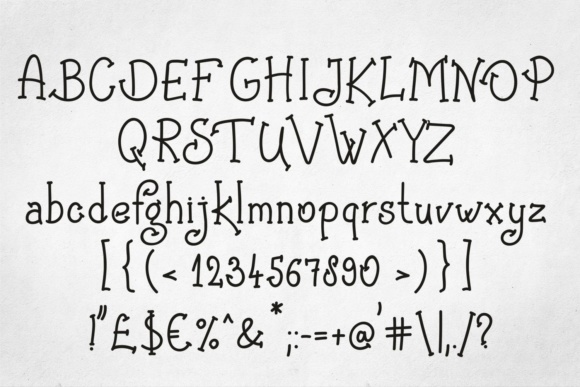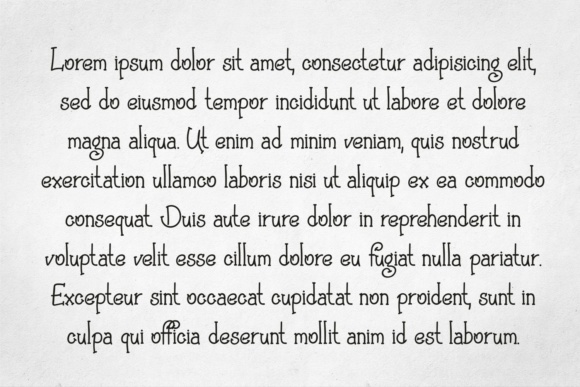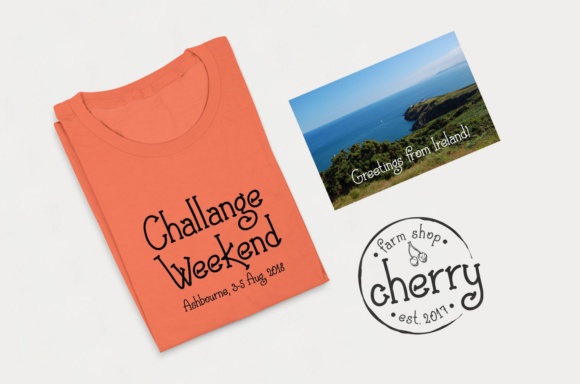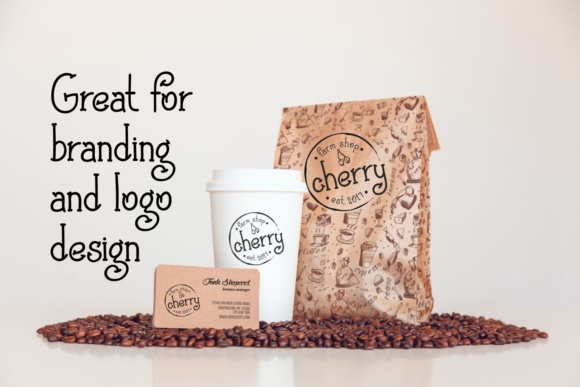
A Warm Touch of Personality with Agrifan Font
Have you ever been working on a project, and the right font just evades you? You scroll through your favorite font libraries, and nothing seems to capture the essence of what you’re trying to convey. That’s exactly what happened to us when we stumbled upon the Agrifan Font.
Agrifan Font is a beautifully crafted serif typeface, carefully hand-designed to add a touch of warmth and personality to your designs. Whether you’re working on a logo, branding project, or a crafty endeavor, Agrifan Font is the perfect companion to bring your ideas to life.
As a valuable addition to any designer’s toolkit, Agrifan Font offers a level of sophistication and charm that’s hard to find in more generic font options. Its unique character and elegant lines make it an ideal choice for anyone looking to add a personal touch to their work.
Agrifan Font Key Features
- Unique Characteristics: Agrifan Font features a unique blend of modern and rustic elements, with intricate details and textures that evoke a sense of natural beauty.
- Language Support: Agrifan Font supports a wide range of languages, including Latin, Cyrillic, and Greek alphabets, making it a versatile choice for multilingual designs.
- Font Styles: Agrifan Font comes in multiple styles, including Regular, Bold, Italic, and Bold Italic, allowing designers to create a range of visual effects and moods.
- Scalability: Agrifan Font is designed to be highly scalable, ensuring that it looks great in a variety of sizes and resolutions, from small text to large headings.
Agrifan Font Review
I recently had the chance to work with the Agrifan font, and I must say it’s a unique and interesting choice for any design project. Here are some of my thoughts on this font.
Customization options: Agrifan font offers a wide range of customization options, making it easy to adjust to your design needs.
Organic feel: The font has an organic feel to it, which can add a natural and earthy touch to your design.
Good legibility: Despite its unique design, Agrifan font is still easy to read, even at smaller font sizes.
Limited character set: Agrifan font has a limited character set, which can make it difficult to use for languages that require a wider range of characters.
Not suitable for small text: While Agrifan font is legible, it may not be the best choice for small text, as the letters can become blurry and difficult to read.
Not ideal for headings: Due to its unique design, Agrifan font may not be the best choice for headings, as it can be difficult to read and understand at larger font sizes.
Overall, I think Agrifan font is a great choice for designers who want to add a unique and organic touch to their designs. However, it may not be the best choice for every project, and designers should carefully consider its limitations before making a decision.
Tips for Getting the Most Out of Agrifan Font
For optimal results, use Agrifan Font for headings and titles, as its unique design makes it perfect for grabbing attention.
Pair Agrifan Font with a clean, modern sans-serif font for body text to create a visually appealing contrast.
Experiment with different font sizes and styles to create a dynamic and engaging visual hierarchy.
Agrifan Font is ideal for:
Food and beverage branding
Outdoor and nature-related designs
Health and wellness marketing